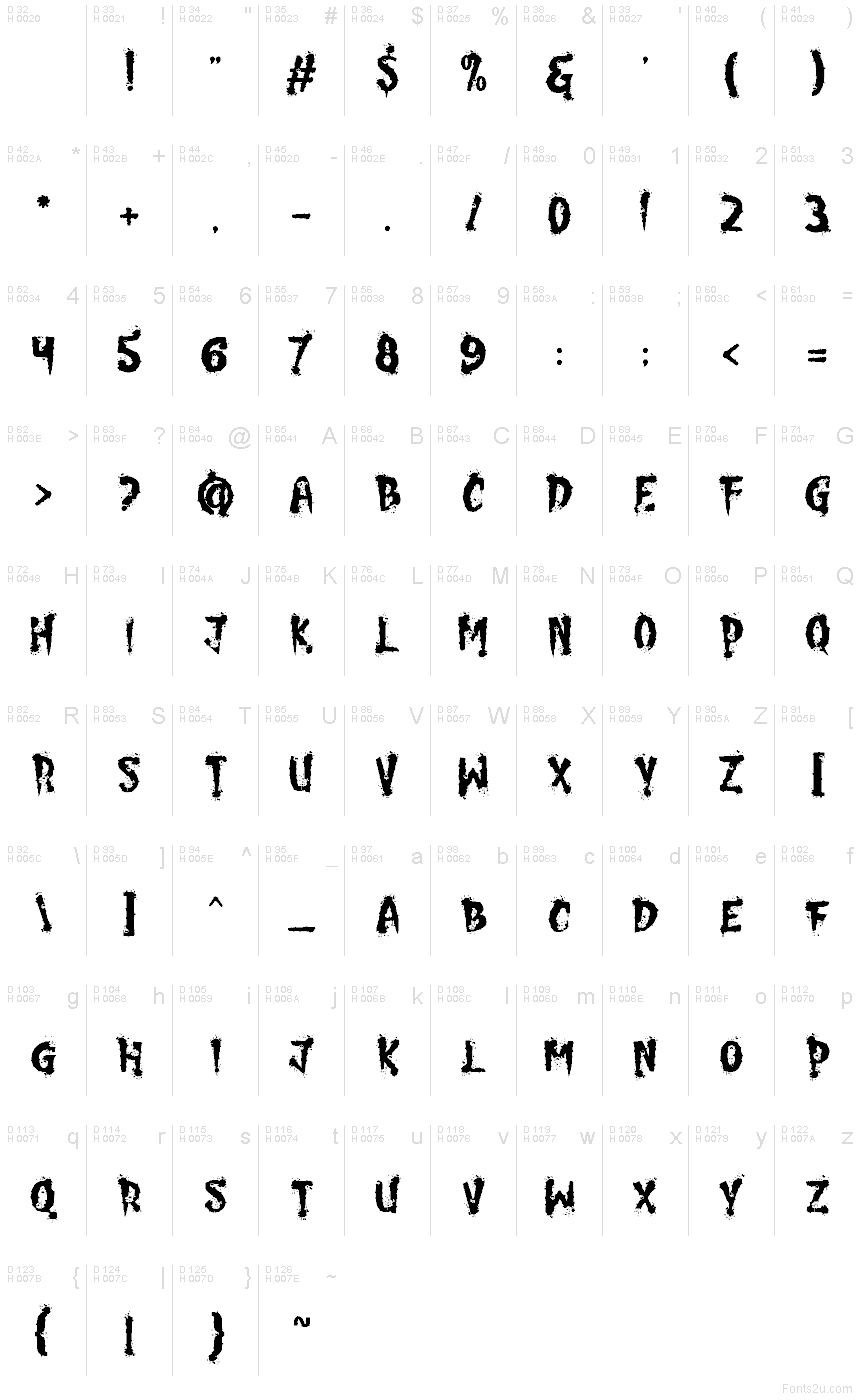
Pumpkin Stare Four
Pumpkin Stare Four font by PutraCetol Studio is a free Halloween display font. Built for spooky headlines, it oozes with inky splatters, jagged cuts, and scratchy edges that feel hand-gouged, like a pumpkin carved with a dull knife. As part of the Pumpkin Stare family, it leans into chaos without losing readability, delivering a gritty, dripped texture that pops at a glance.
Using Pumpkin Stare Four, your graphics grab attention fast—great for posters, party invitations, haunted house flyers, yard signs, streaming thumbnails, and sticker sheets. This free font thrives at big sizes; add a touch of letterspacing to sharpen the silhouette. Pair it with a plain geometric sans for supporting copy so the gnarly headline can do the scaring.